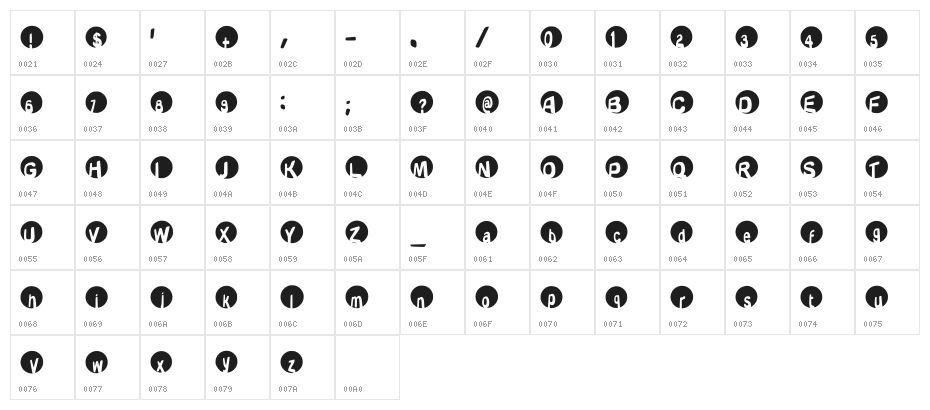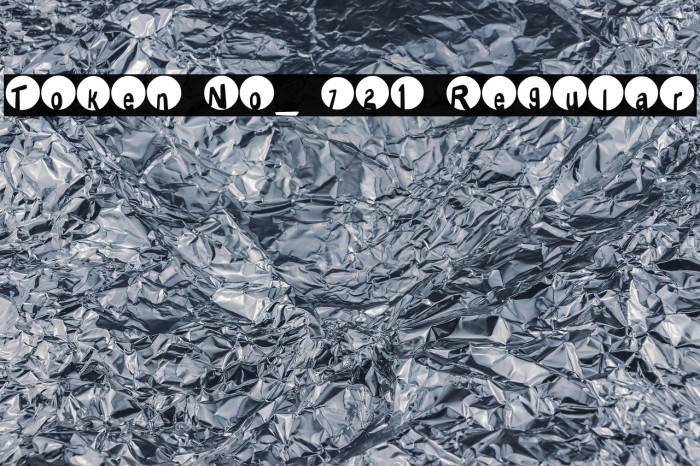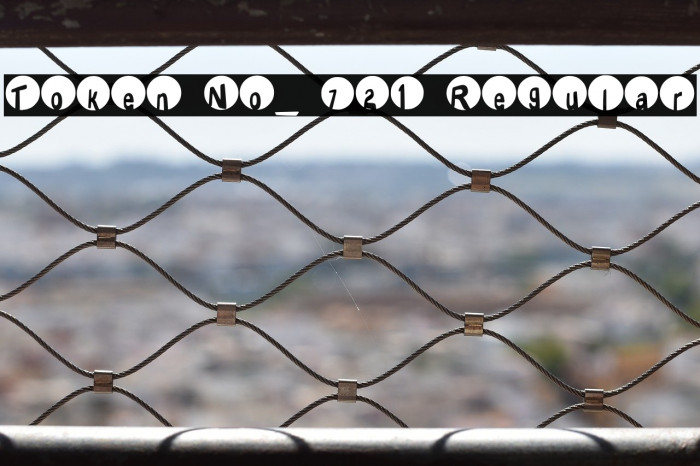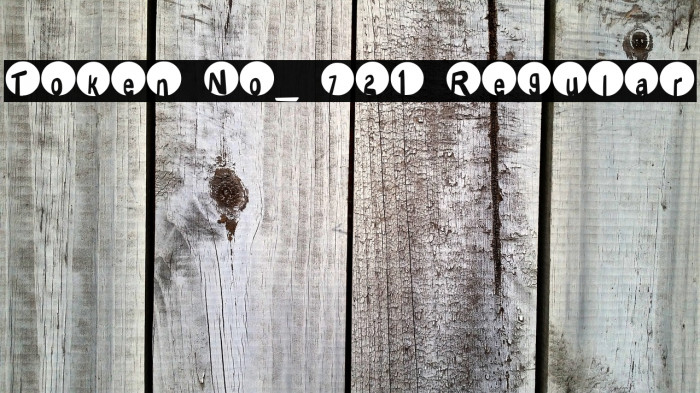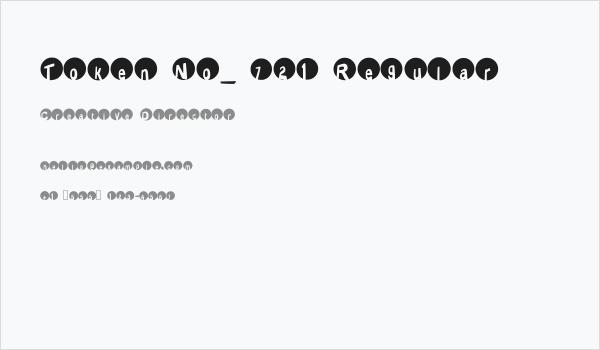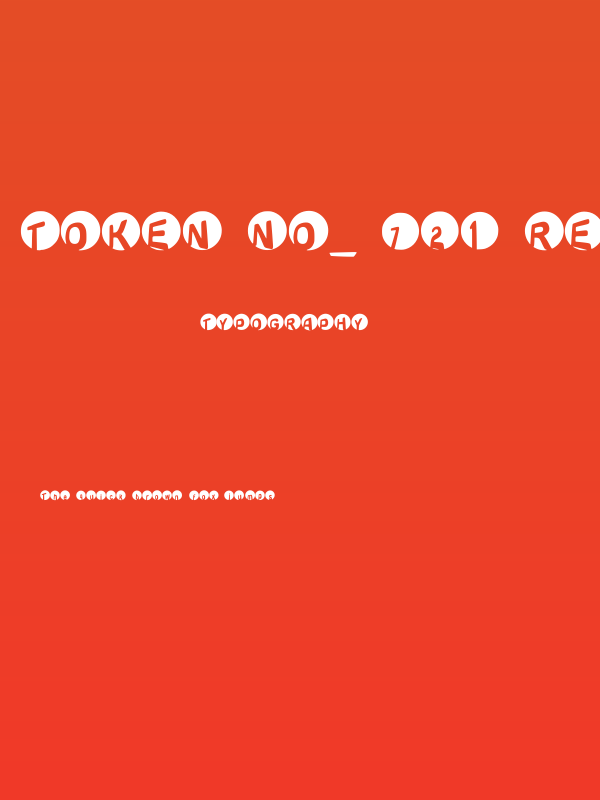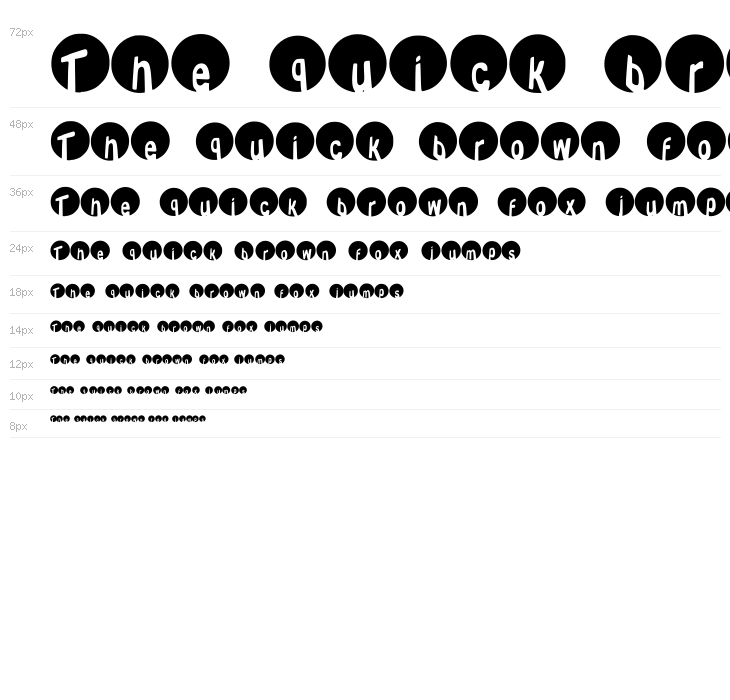
Token No_ 721 Regular Font
Token No_ 721 Regular Description
This font features a unique and bold design where each character is encapsulated within a solid black circle, creating a striking contrast. The letters are white and cut out in a stencil-like manner, giving them a modern and edgy appearance. The uppercase and lowercase letters maintain a consistent style, with sharp angles and clean lines. The numbers and special characters follow the same design principle, ensuring uniformity across the typeface. This font's distinct style makes it stand out, ideal for projects that require a bold and unconventional look.
| Proposed Projects | Ideal for posters, album covers, branding, and any project needing a bold, modern look. |